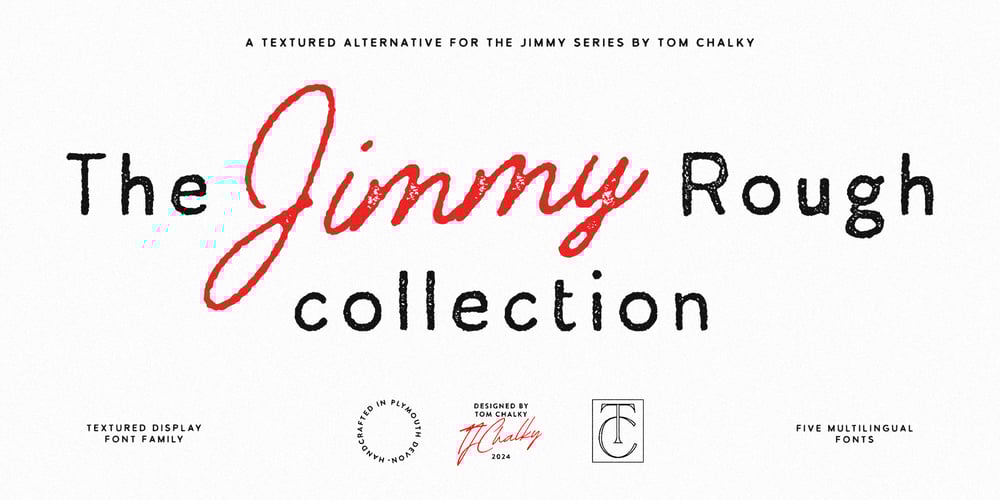
TC Jimmy Rough Font Family was designed by Tom Chalky and published by Tom Chalky. TC Jimmy Rough contains 5 styles and family package options. Introducing The Jimmy Rough Collection!This versatile font family features distressed and vintage-inspired sans and serif fonts, with a wonderfully handwritten monoline script! A great choice to add a rustic touch to your design projects. Each font in The Jimmy Rough Collection offers a beautifully rough, textured appearance that brings authenticity and character to your work.This font family is ideal for retro branding, logo design, packaging, and creative projects that crave that ever-so-desirable vintage aesthetic. What’s Inside? Jimmy Sans Rough Regular Jimmy Sans Rough Bold Jimmy Serif Rough Regular Jimmy Serif Rough Bold Jimmy Script Rough Multilingual Extended Latin Glyph Coverage